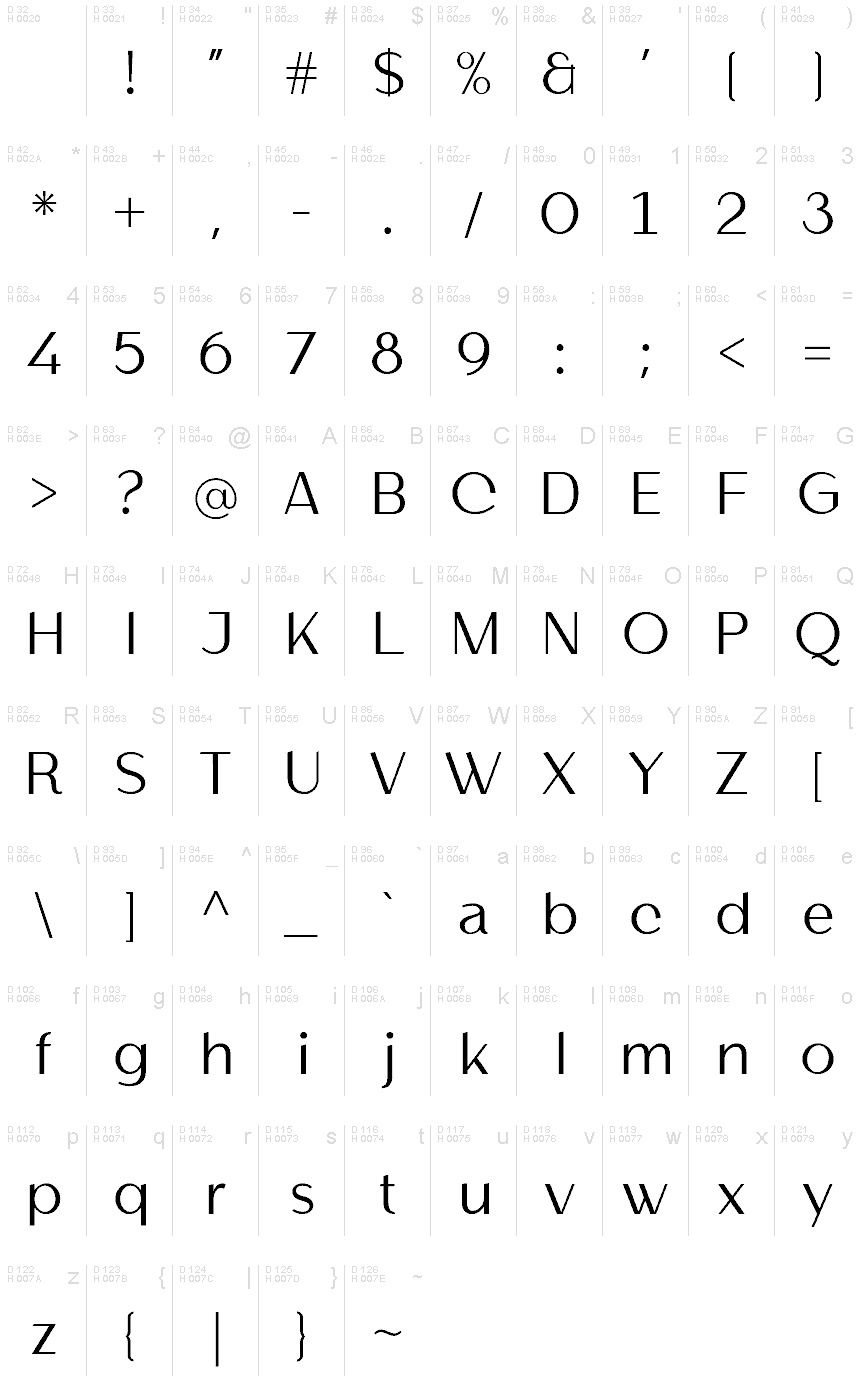
Helnore Regular
Helnore font by Owlking Project is an elegant and modern sans serif font with clean lines and a minimalist approach. Its design integrates geometric elements which balance simultaneously simple and complex shapes within each character. Curved angles, prominent round shapes, missing spaces, rectangular forms – all this plays a role in making this typeface style so unique!
This beautiful artistic product can be used to create book covers, posters, business cards, boarding signs at the airport or train station, social media posts including cover photos or stories highlights covers. Important product packaging such as soap bottles or other beauty items would also fit into a Helnore free font usage scenario!